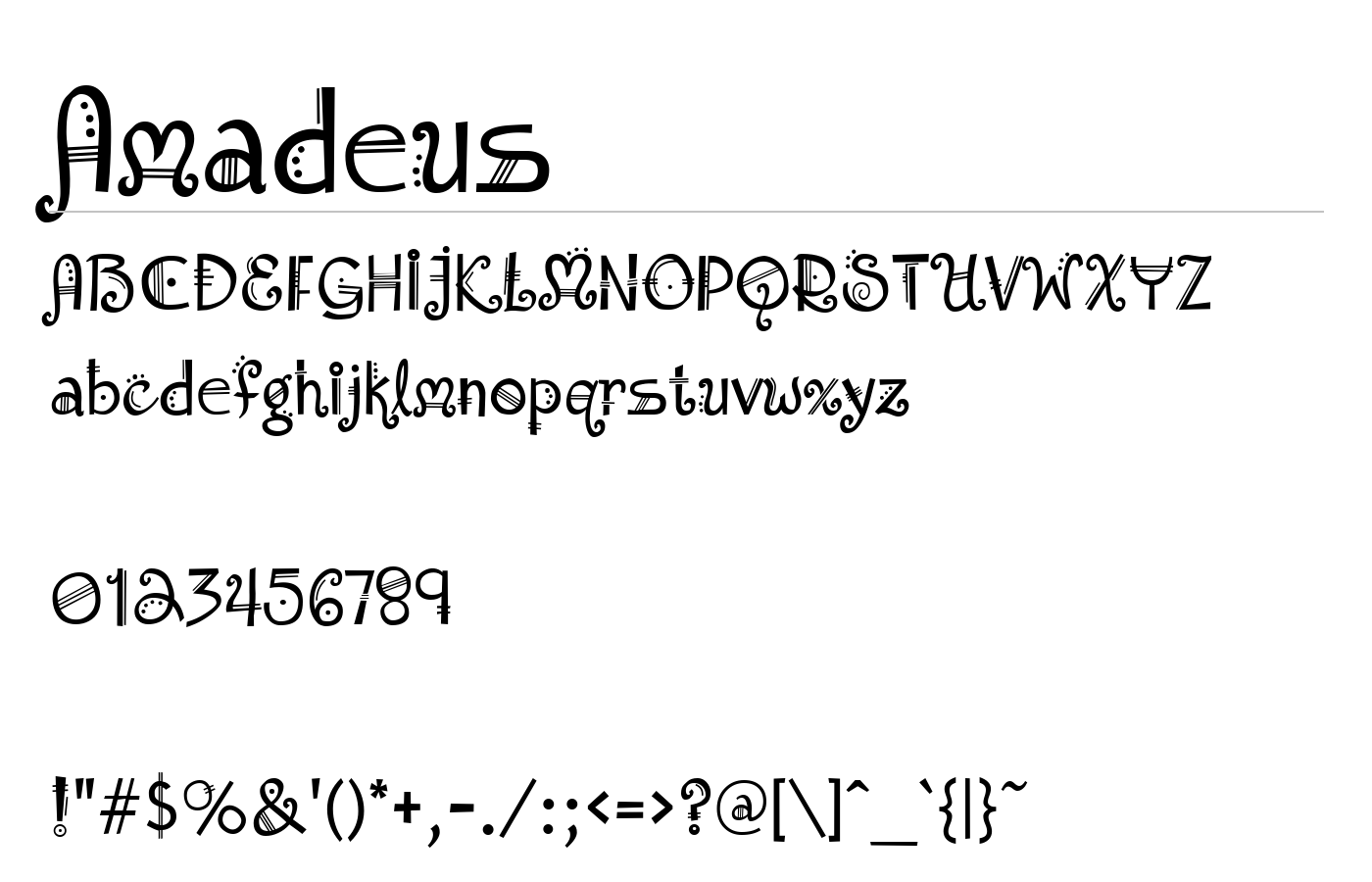
Amadeus Regular is a playful and decorative serif font featuring whimsical, hand-drawn-like details with varied line textures and quirky embellishments on letters and numbers. Its unique style brings a lively, artistic feel perfect for creative projects, children’s books, or branding that seeks a fun, distinctive personality. This font works best in headlines, logos, or any design where a charming and unconventional touch is desired.
Amadeus Regular Font
About Amadeus Regular Font